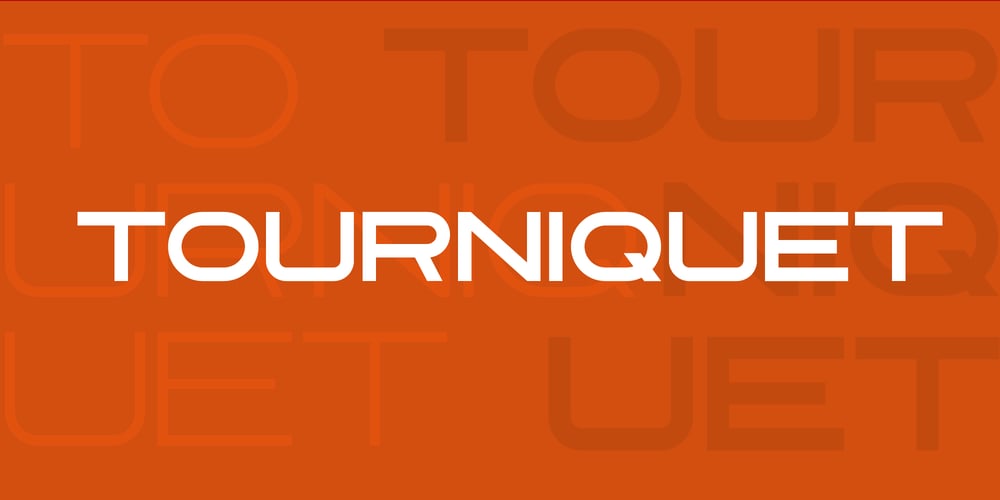
Tourniquet
Tourniquet font
Tourniquet Font Family was designed by Volodymyr Berla and published by VladB. Tourniquet contains 8 styles and family package options. Tourniquet is a modern sans serif geometric font, includes upper and lower case characters, Latin, Cyrillic, Latin Eastern Europe, Turkish, Baltic and other.Tourniquet family consists of 8 fonts, divided into 2 subgroups (according to the type of style – St, Rg), and have the 4 types of thickness in each subgroup.Tourniquet fonts will be useful in developing a brand, creating posters and other graphic products, and for word processing.